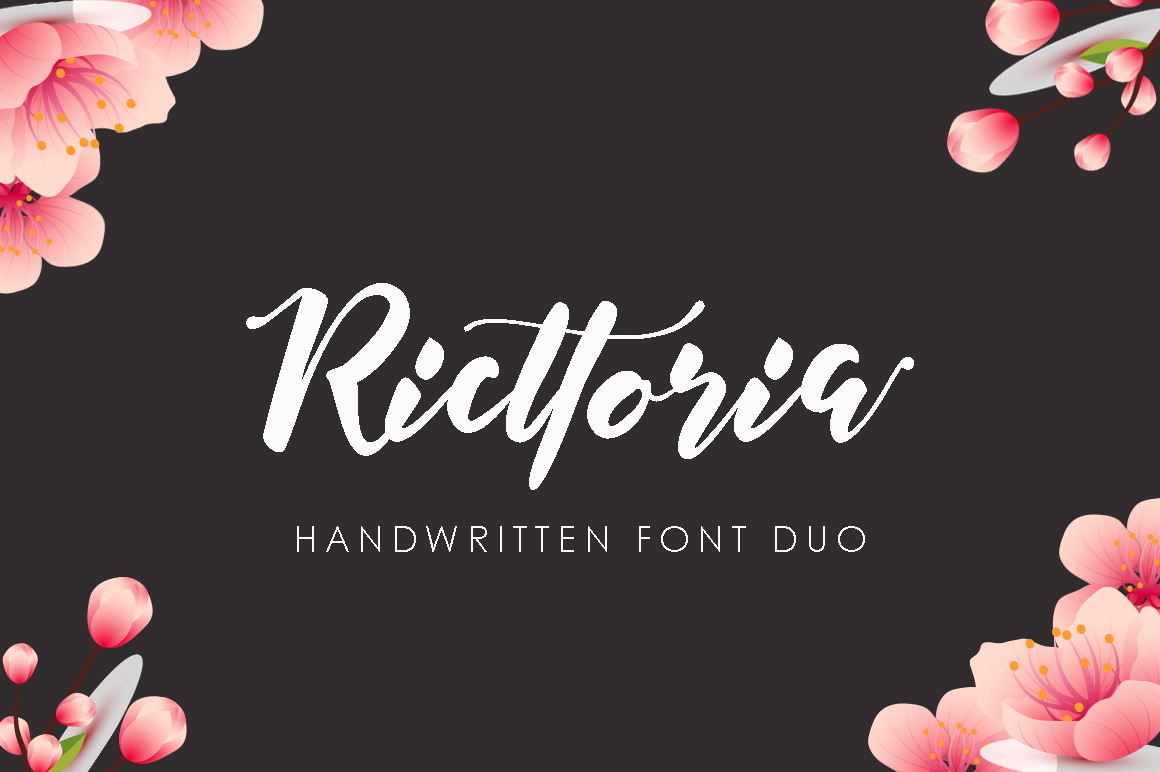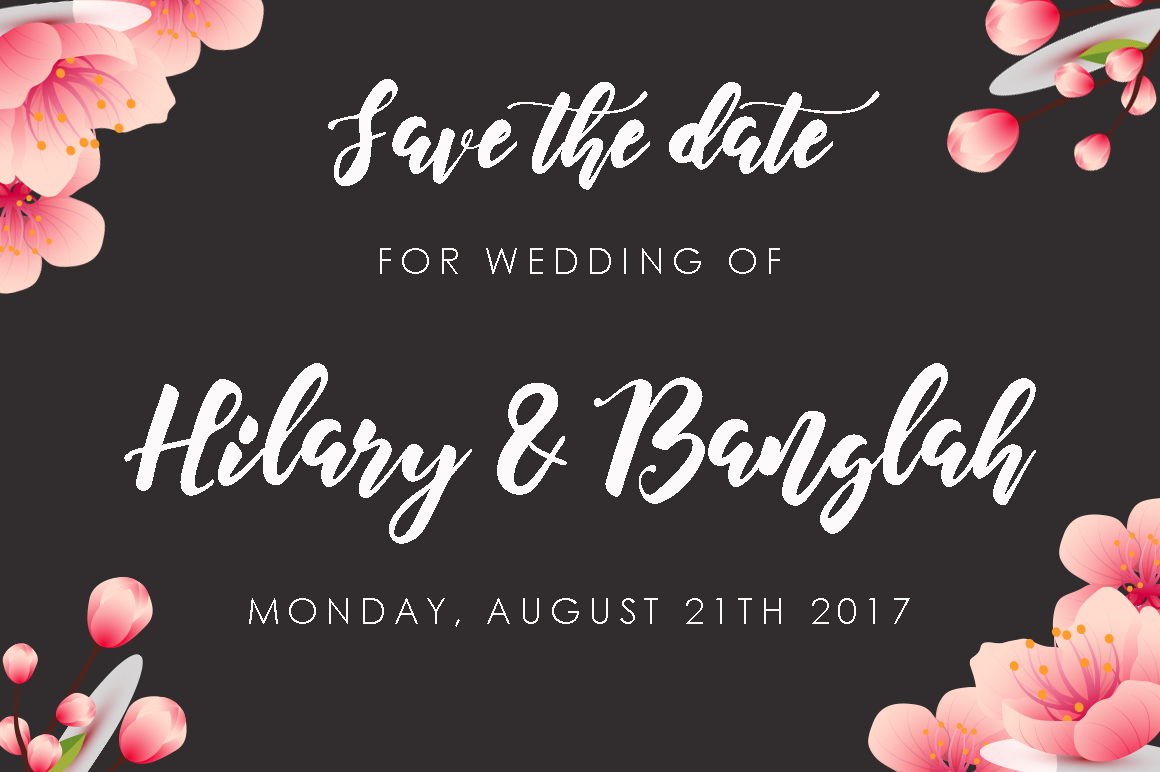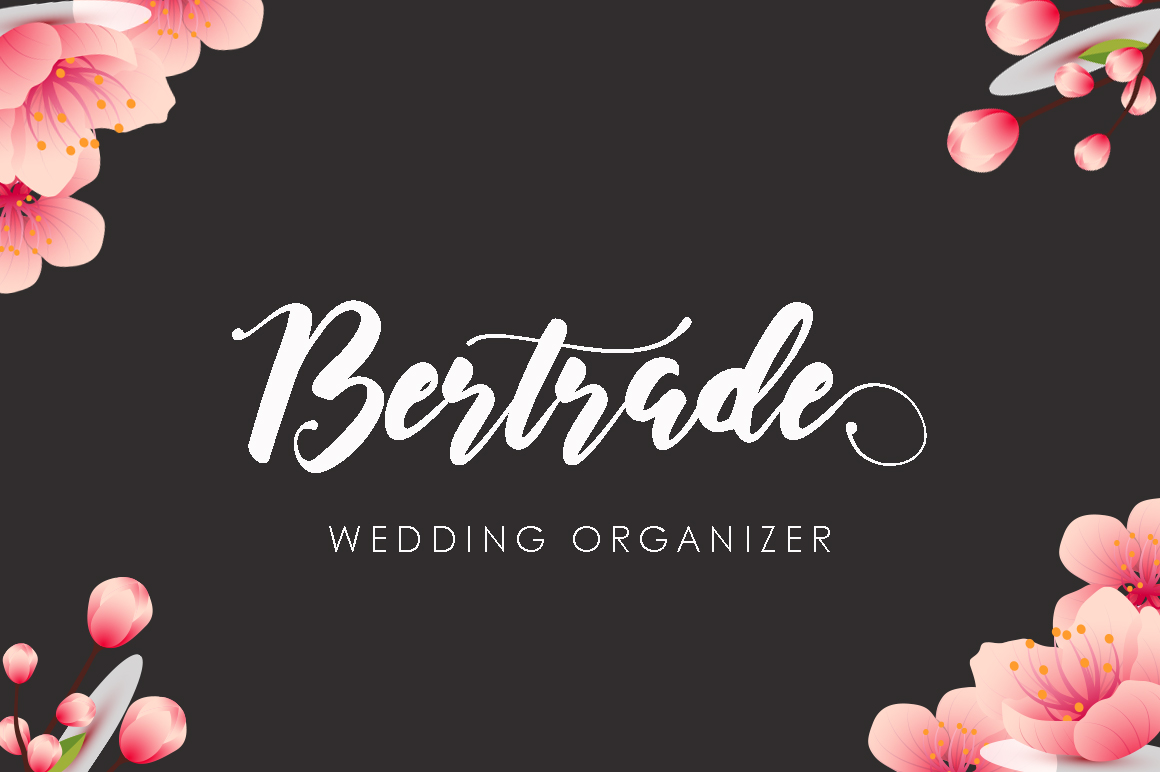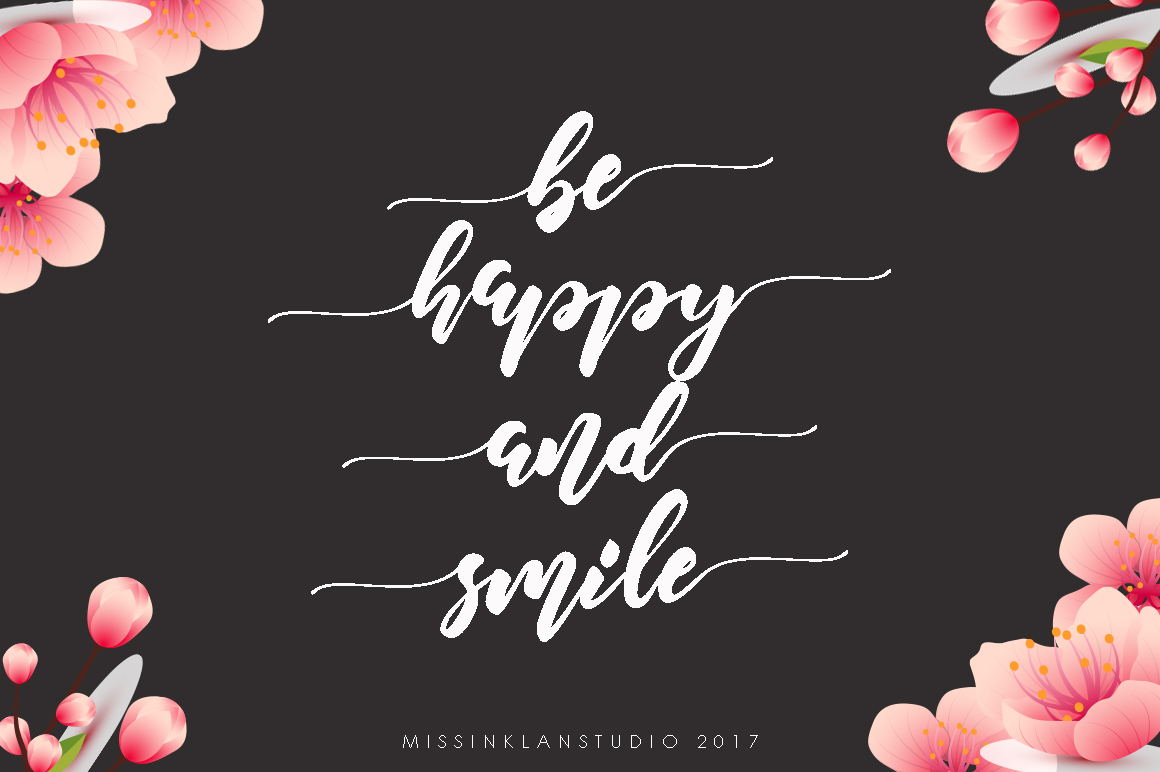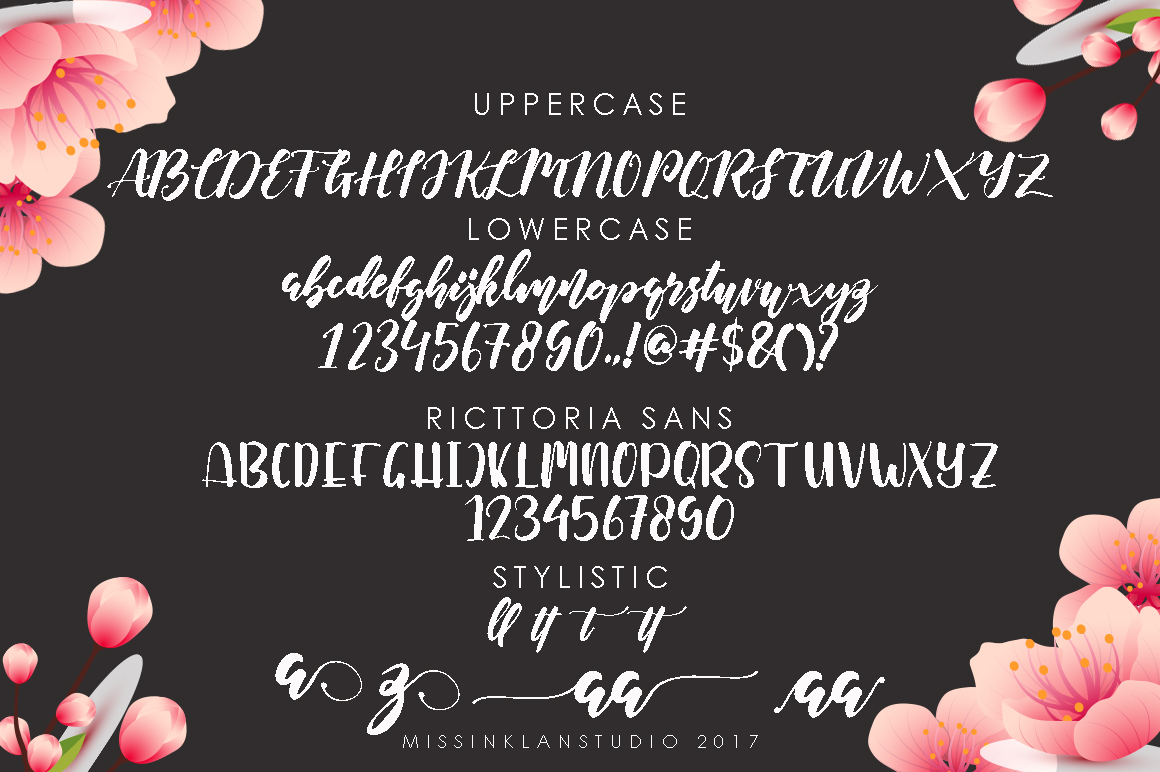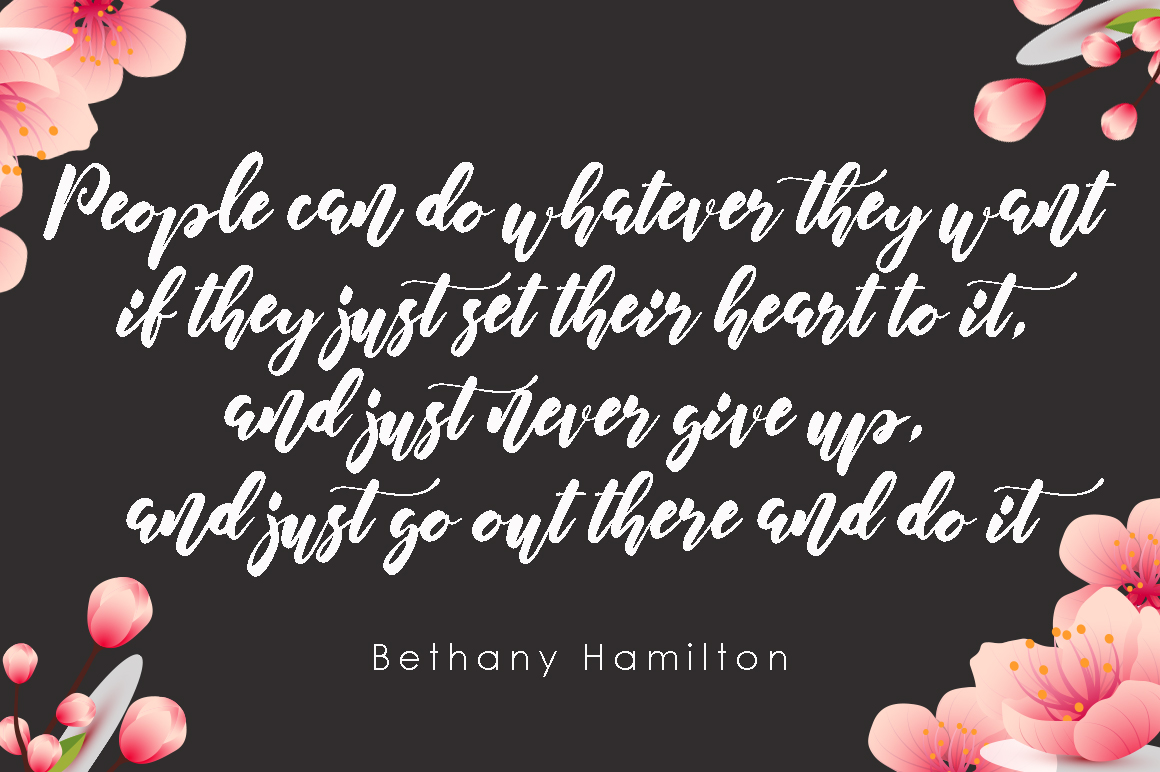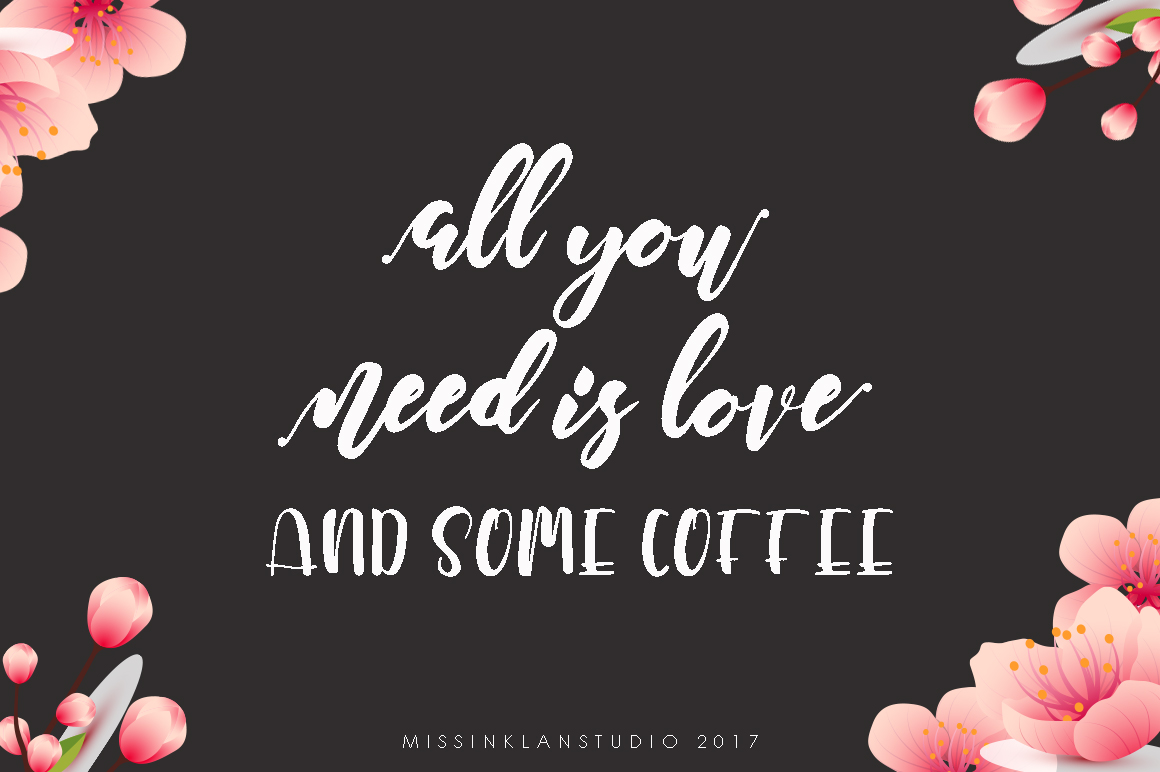
Ricttoria Font
About Ricttoria Font
Ricttoria is a modern handcrafted font. It’s perfect for many different types of projects and comes with 2 different fonts.